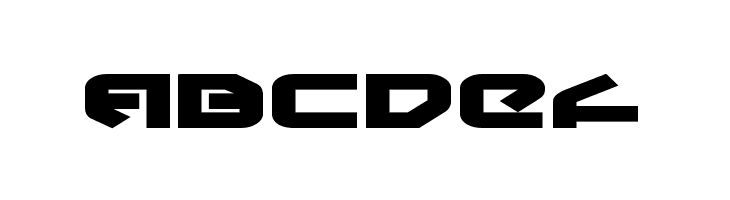
Ex Kata Damaged Font
- Font: Ex Kata Damaged
A bold, artistic font with sharp angles and smooth curves, offering a modern and futuristic aesthetic.
( Fonts by Jester Font Studio )